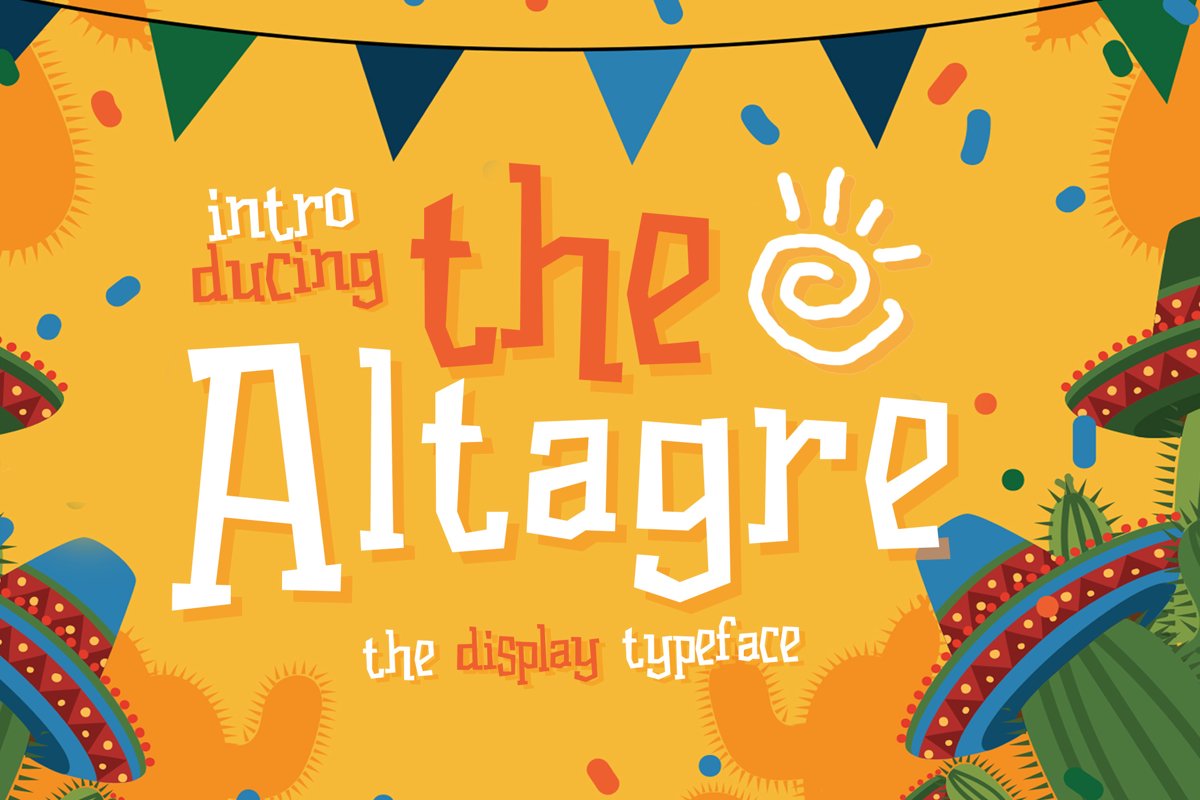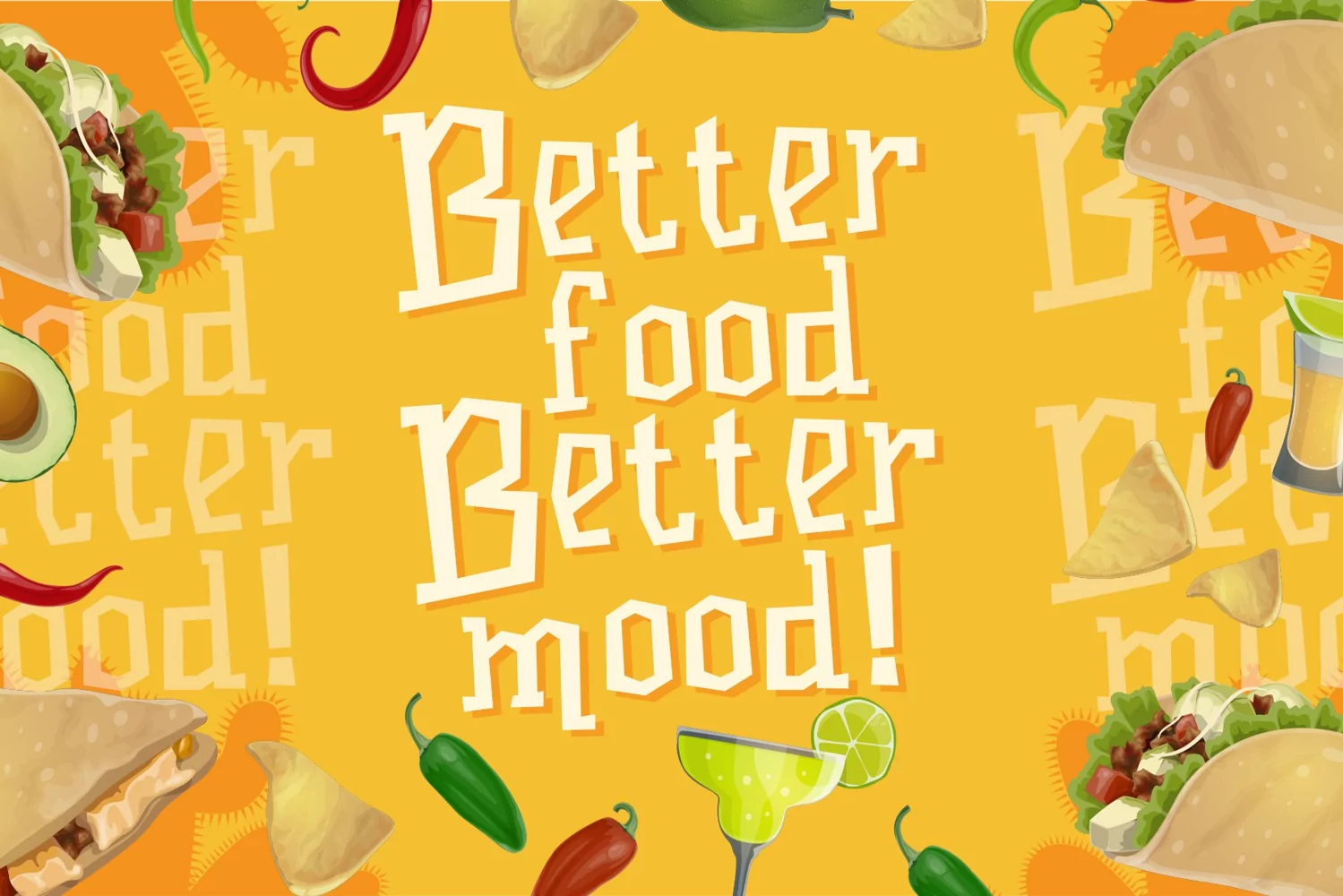
Altagre is a display typeface. Perfect for display, quotes, logo, logotype, branding, event needs, badges, emblem, merchandise, packaging, print, t-shirt, business card, and many more.